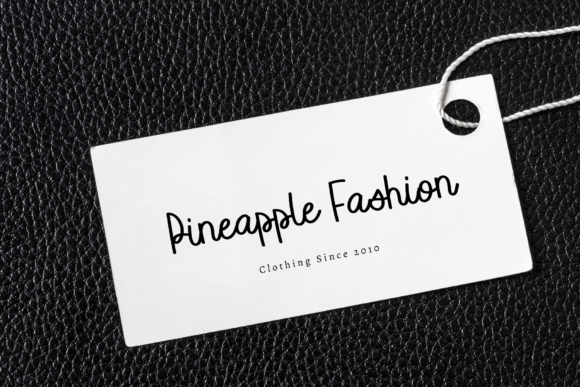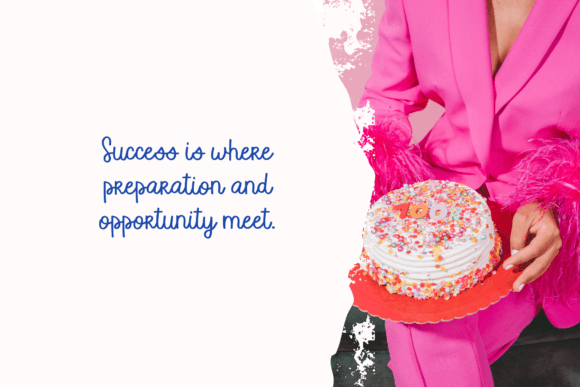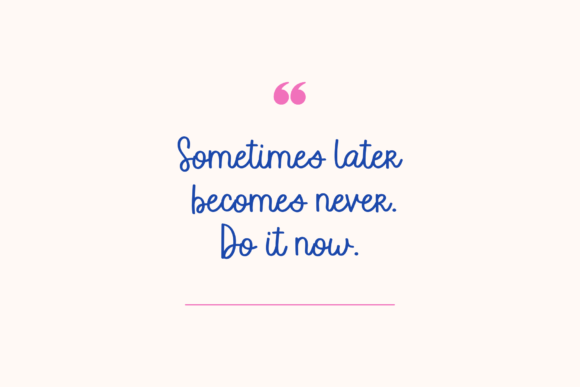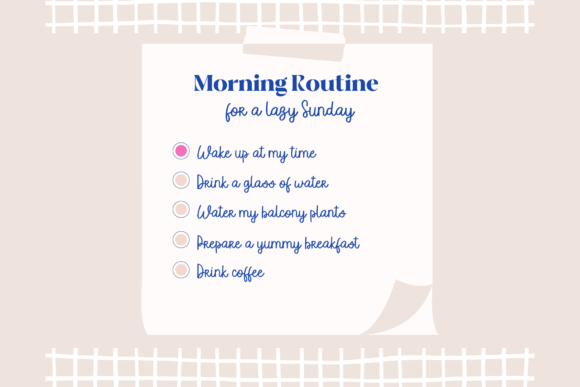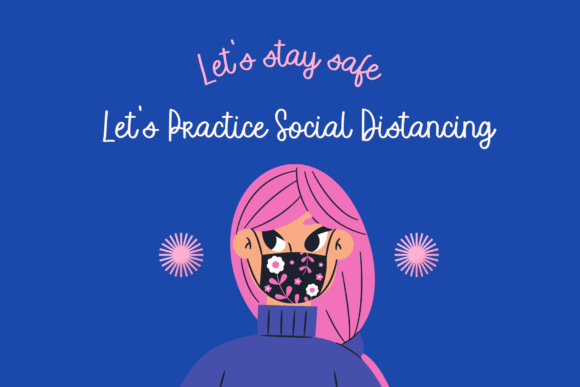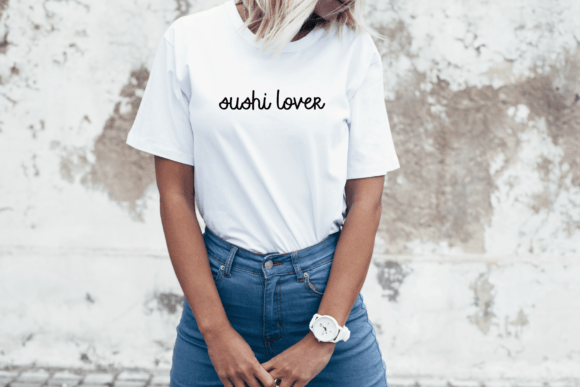
Introduction to Jumping Hearts Font
Have you ever stumbled upon a font that makes you feel like you’re holding a piece of handmade magic in your hands? For designers and crafty enthusiasts, discovering the perfect font can be a game-changer. And for those who crave that whimsical, handwritten feel, the Jumping Hearts Font is a treasure trove waiting to be explored.
This delightful font is a design resource that’s perfect for creative projects that require a personal touch. With its high-quality, cursive script, the Jumping Hearts Font is ideal for digital planners, stickers, quotes, and so much more. Whether you’re a seasoned designer or a DIY enthusiast, this font is sure to bring a touch of warmth and personality to your designs.
Key Features of Jumping Hearts Font
- Unique and playful design perfect for creative projects
- Includes a range of characters and glyphs to suit various design needs
Honest Review: Jumping Hearts Font
I recently stumbled upon the Jumping Hearts Font, and I’m excited to share my honest thoughts with you. As a designer, I’m always on the lookout for high-quality design resources to elevate my creative projects.
Here are some pros and cons of this font:
- ✨ Beautiful, whimsical design that adds a playful touch to any project
- ✨ High quality, smooth lines, and intricate details make it perfect for digital art and graphics
- ✨ Offers a transparent background option for seamless integration into any design
- ⚠️ Limited font styles and variations, which might make it less versatile for some projects
- ⚠️ Not ideal for text-heavy designs due to its playful, cursive nature
Overall, I’m impressed with the Jumping Hearts Font’s unique design and high quality. While it may have some limitations, it’s a great addition to any designer’s arsenal, especially for creative projects that require a touch of whimsy.
How to Use Jumping Hearts Font
The Jumping Hearts Font is a high-quality design resource perfect for creative projects. Its unique, playful style makes it ideal for a variety of applications.
Tips for Getting the Most Out of Jumping Hearts Font
To get the most out of the Jumping Hearts Font, try combining it with other design elements, such as bold colors and playful graphics.
The Jumping Hearts Font is perfect for:
- Children’s party invitations
- Wedding stationery
- Playful advertisements